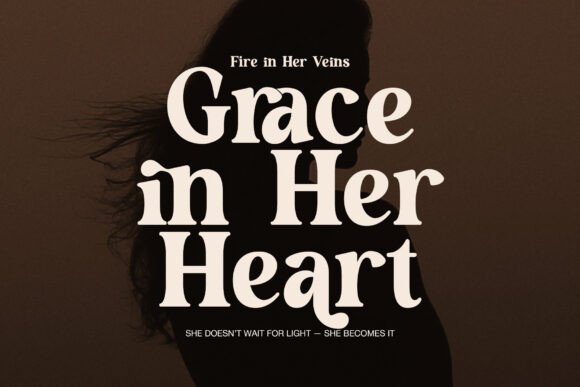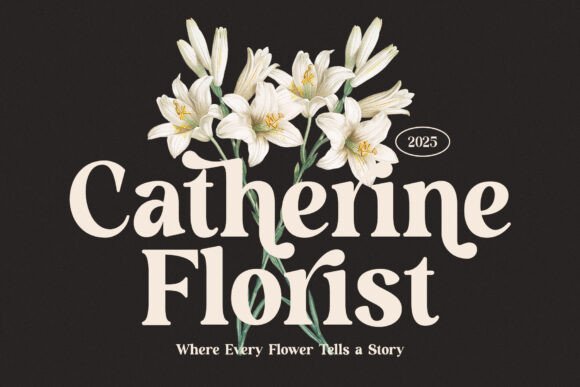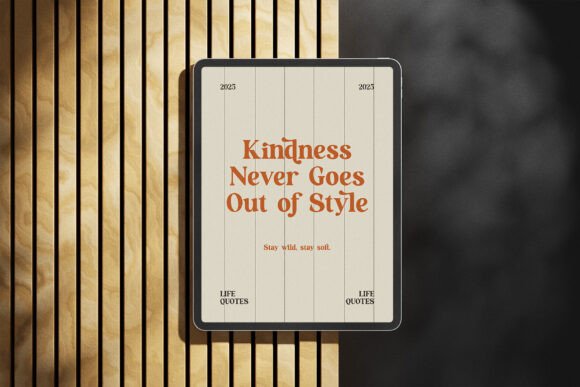
Introduction to Milgra Font
Imagine the thrill of staring at a blank canvas, waiting for the perfect font to bring your creative project to life. The blank page can be intimidating, but the right design resource can make all the difference. For designers, finding the perfect font can be a game-changer – it’s the key to elevating a simple idea into a stunning visual masterpiece.
Enter Milgra Font, a stunning serif font that’s about to revolutionize the way you approach your next creative project. With its elegant curves, high contrast strokes, and delicate detailing, Milgra Font is the perfect addition to any designer’s toolkit.
Whether you’re working on a high-impact design or a simple logo, Milgra Font is a valuable resource that will take your work to the next level. Its high quality and versatility make it a must-have for designers who want to create truly memorable designs. And the best part? Milgra Font is available for free download, complete with a transparent background and a range of customizable options.
Key Features of Milgra Font
- Designed with precision, resulting in crisp and clear text at any resolution
- Supports a wide range of languages and characters, making it a great choice for multilingual designs
Honest Review: Milgra Font
As a designer, I’m always on the lookout for high-quality design resources to elevate my creative projects. The Milgra Font is one such find that caught my attention. Upon closer inspection, I discovered its unique features that make it an excellent addition to any design library.
- High-quality design: The font’s crisp lines and clean typography make it perfect for use in a variety of creative projects.
- Limited font family: While the Milgra Font is well-designed, its limited family size may not offer the same level of versatility as other font options.
- No bold or italic variants: This omission might make it difficult to use the font in situations where bold or italic text is required.
Overall, I’m impressed with the Milgra Font’s quality and usability. While it has its limitations, I believe it’s a valuable design resource that can enhance any creative project. If you’re looking for a high-quality, free font, the Milgra Font is definitely worth checking out.
The Milgra Font is a high-quality design resource ideal for creative projects that require a unique and elegant touch. This free download can be used in various applications, including graphic design software and presentation tools.
Tips for Getting the Most Out of Milgra Font
Here are a few tips to help you get the most out of the Milgra Font:
- Experiment with different font sizes and styles to add depth and interest to your design.
- Combine the Milgra Font with other design elements, such as images and graphics, to create a unique and engaging visual experience.
Compared to Milgra Font, Great Vibes Font has a more classic and timeless feel, while Milgra Font is more modern and bold. Great Vibes Font is a great choice for designers who want a font that exudes elegance and refinement.